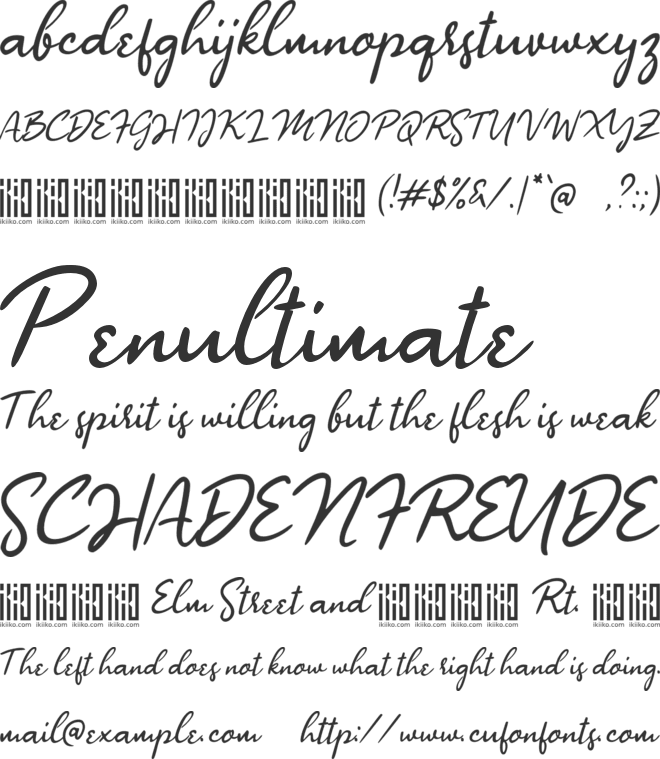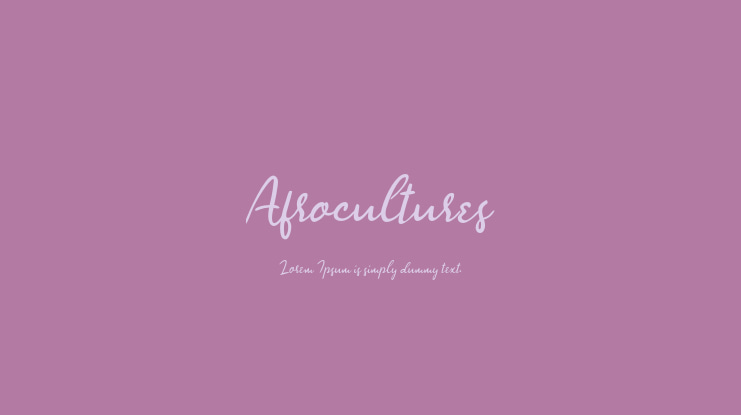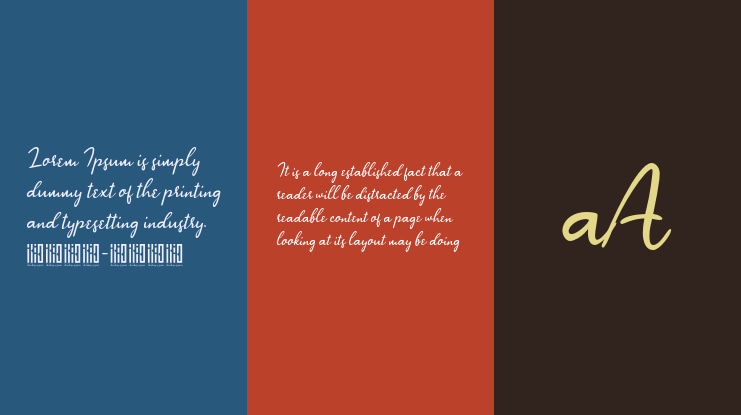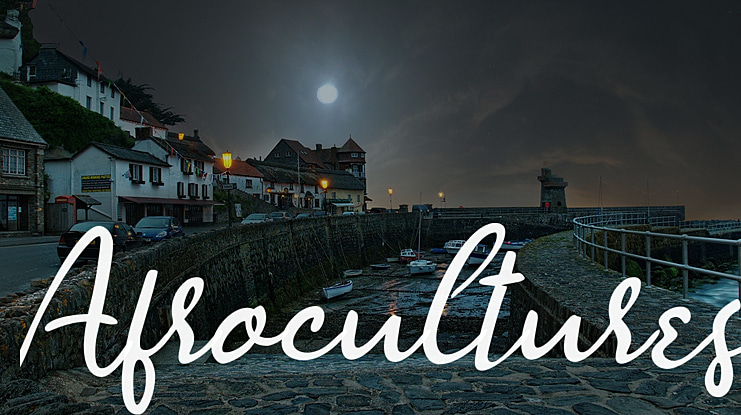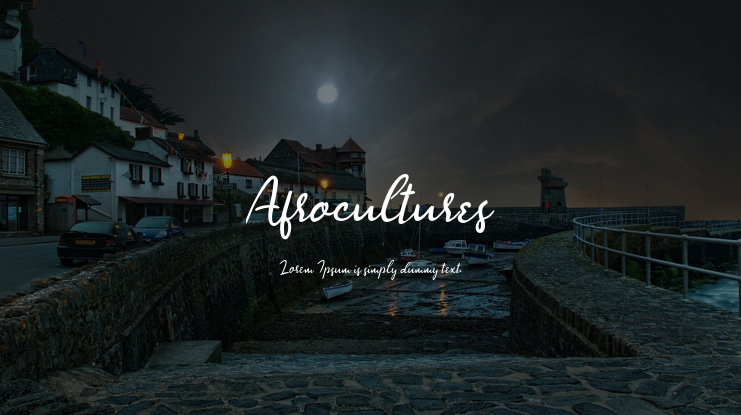
Afrocultures Font
Introducing Afrocultures - Exotic Typeface created by ikiiko.
A handwriting with unique and exotic line curves typeface with ton of alternatives to choose. This typeface is perfect for an elegant logo, magazine layout, headline font, header page, beauty product, packaging product, quotes, or simply as a stylish text overlay to any background image.